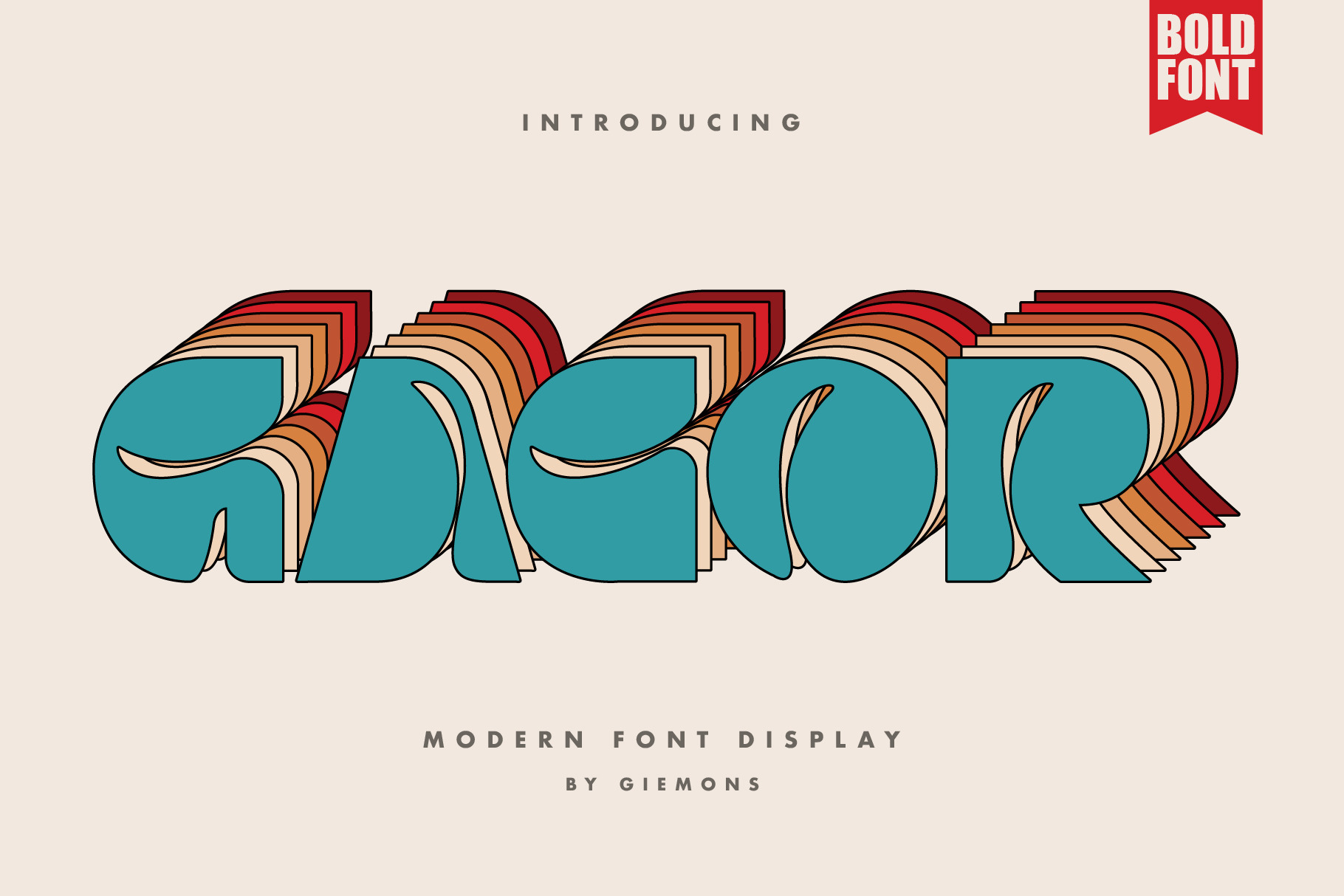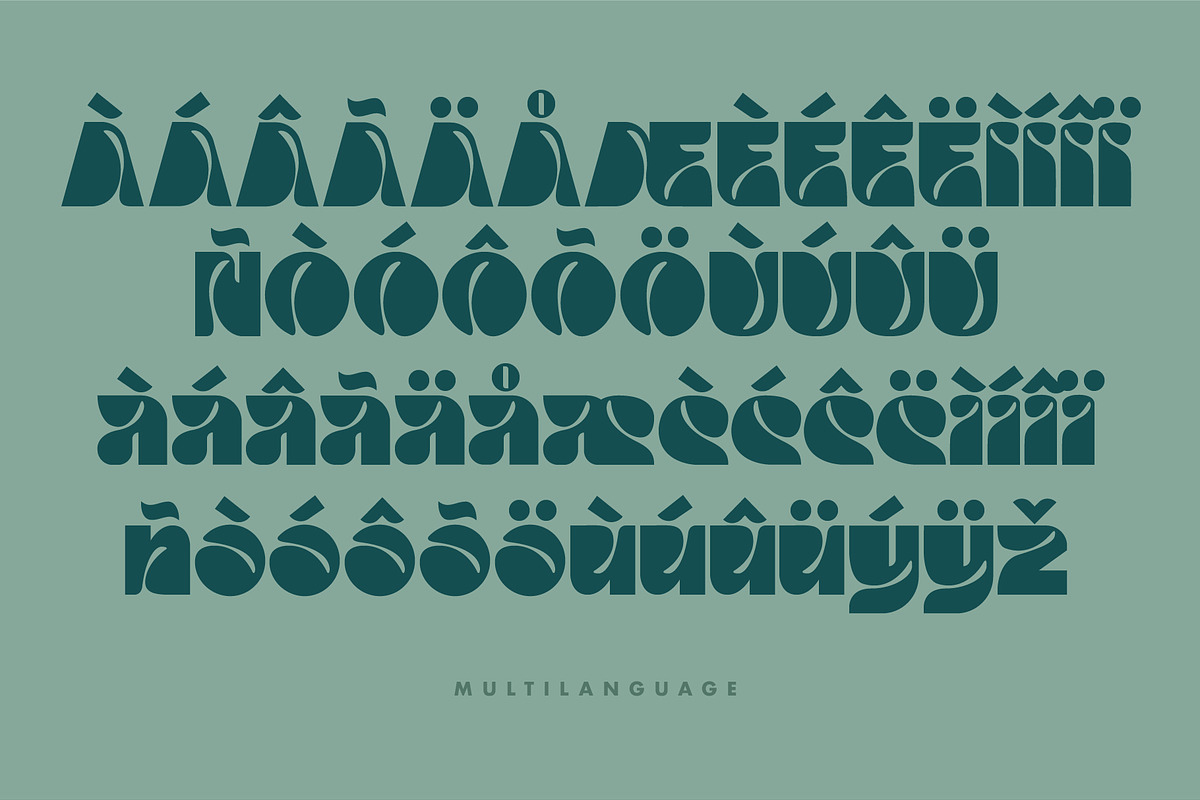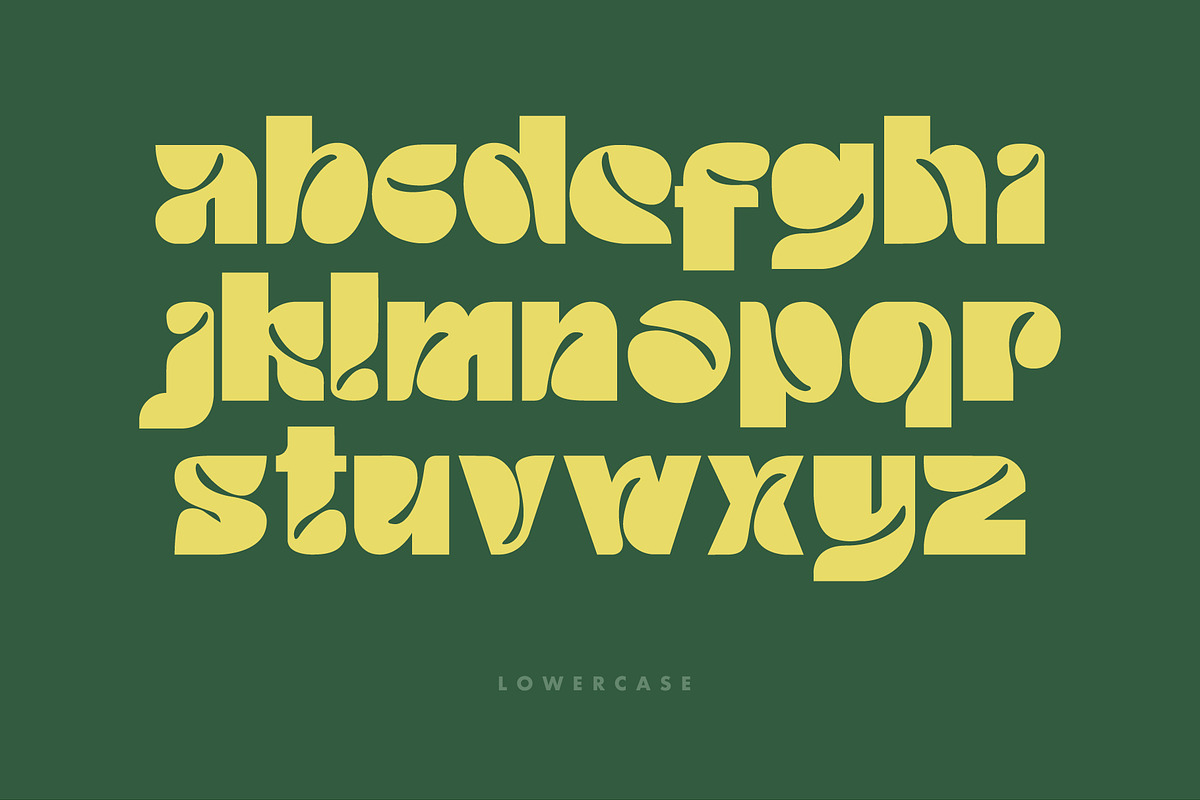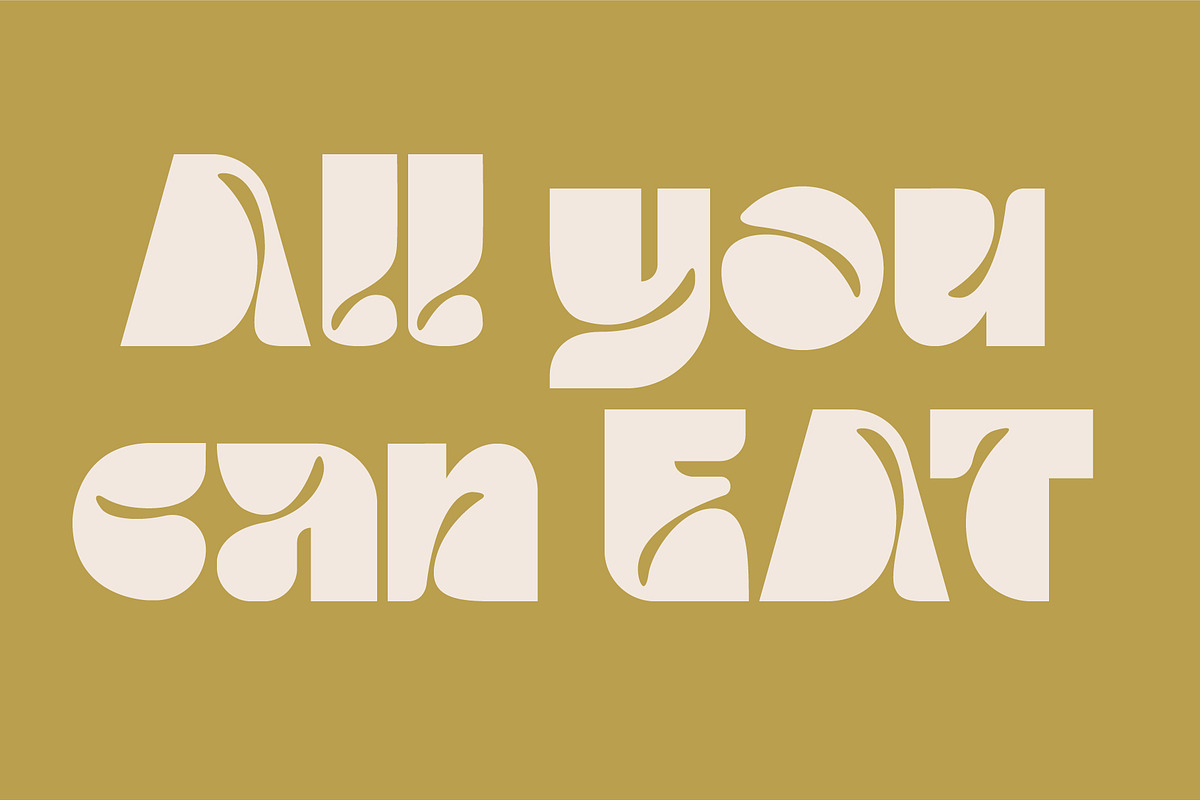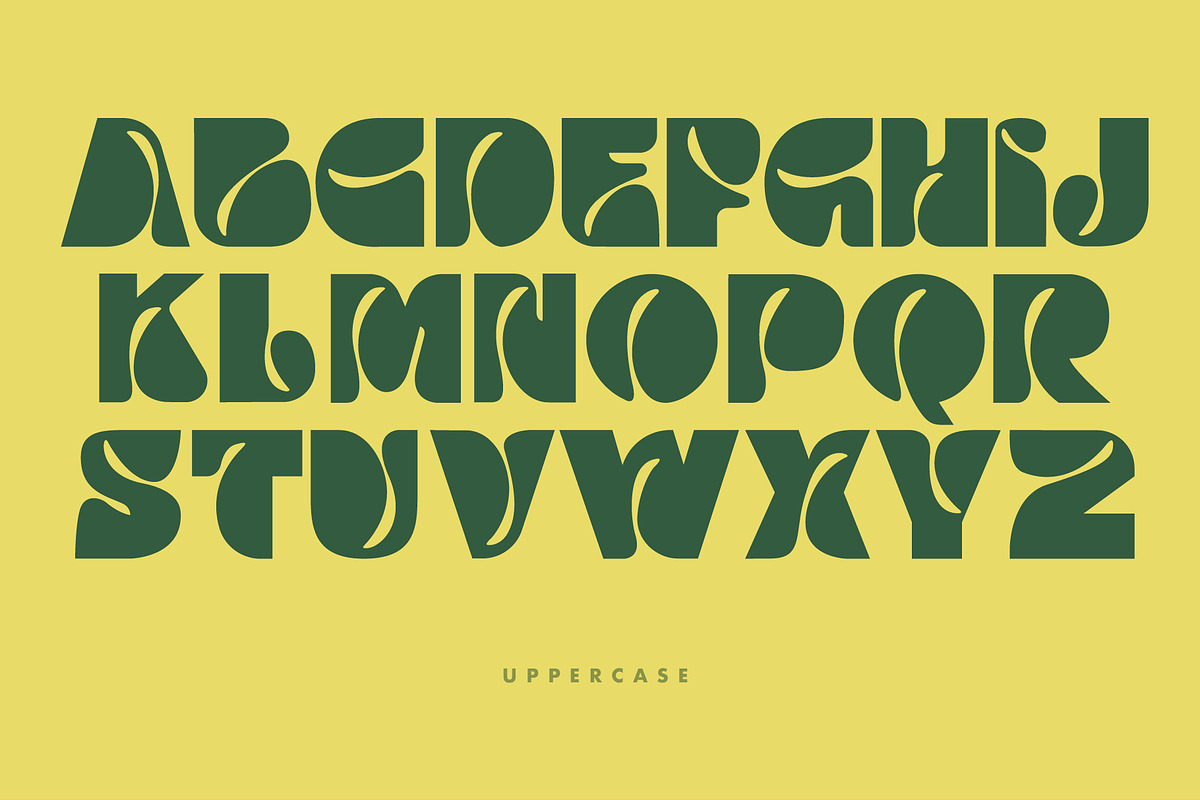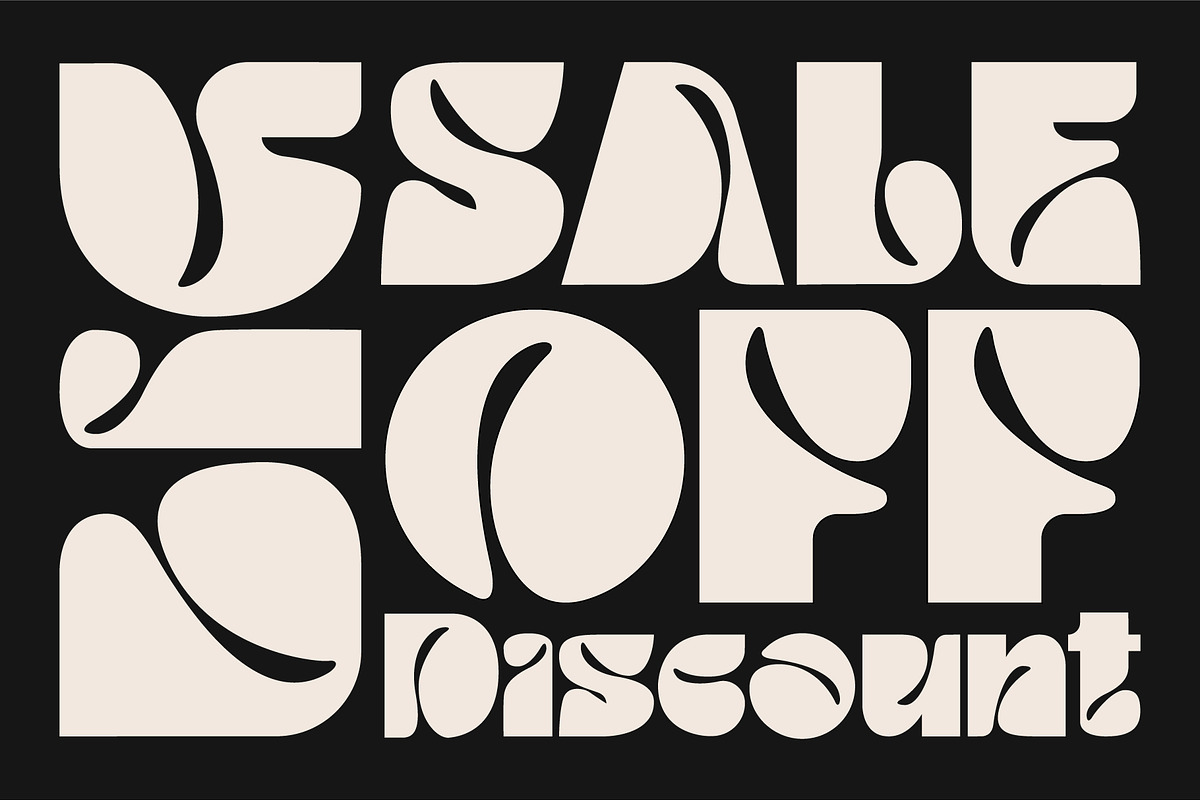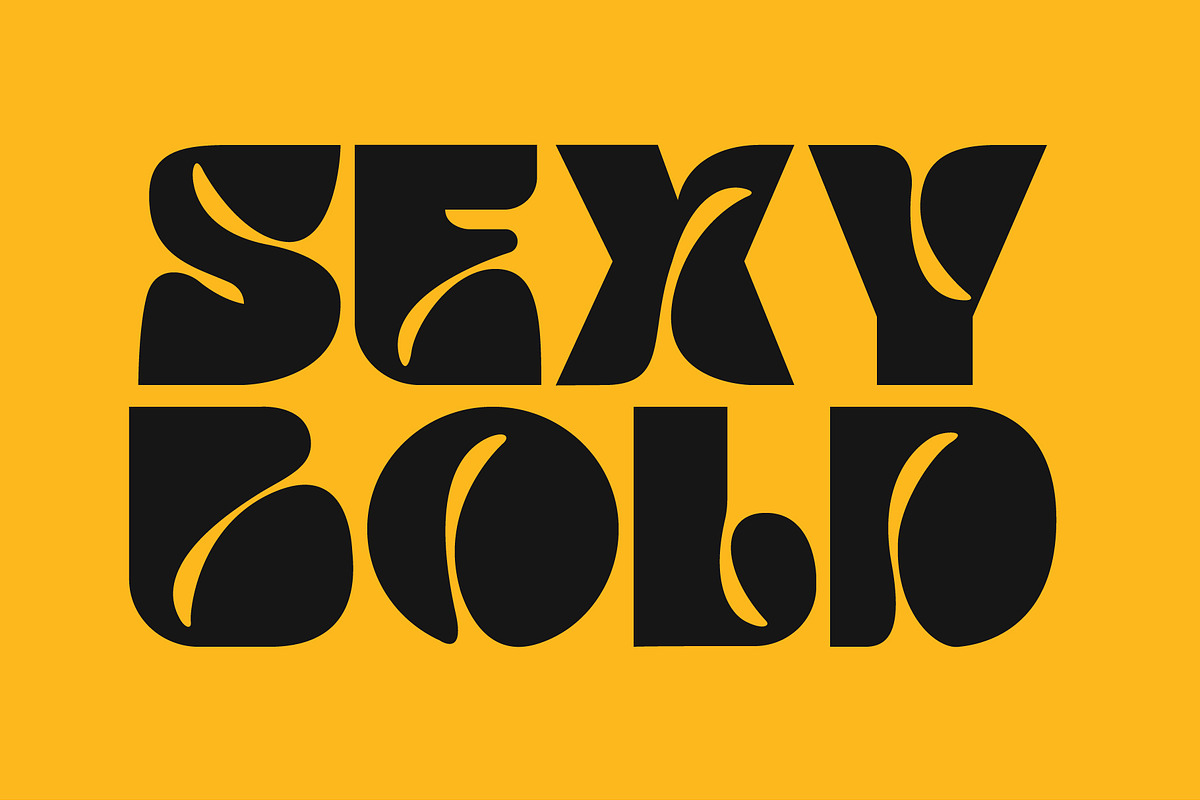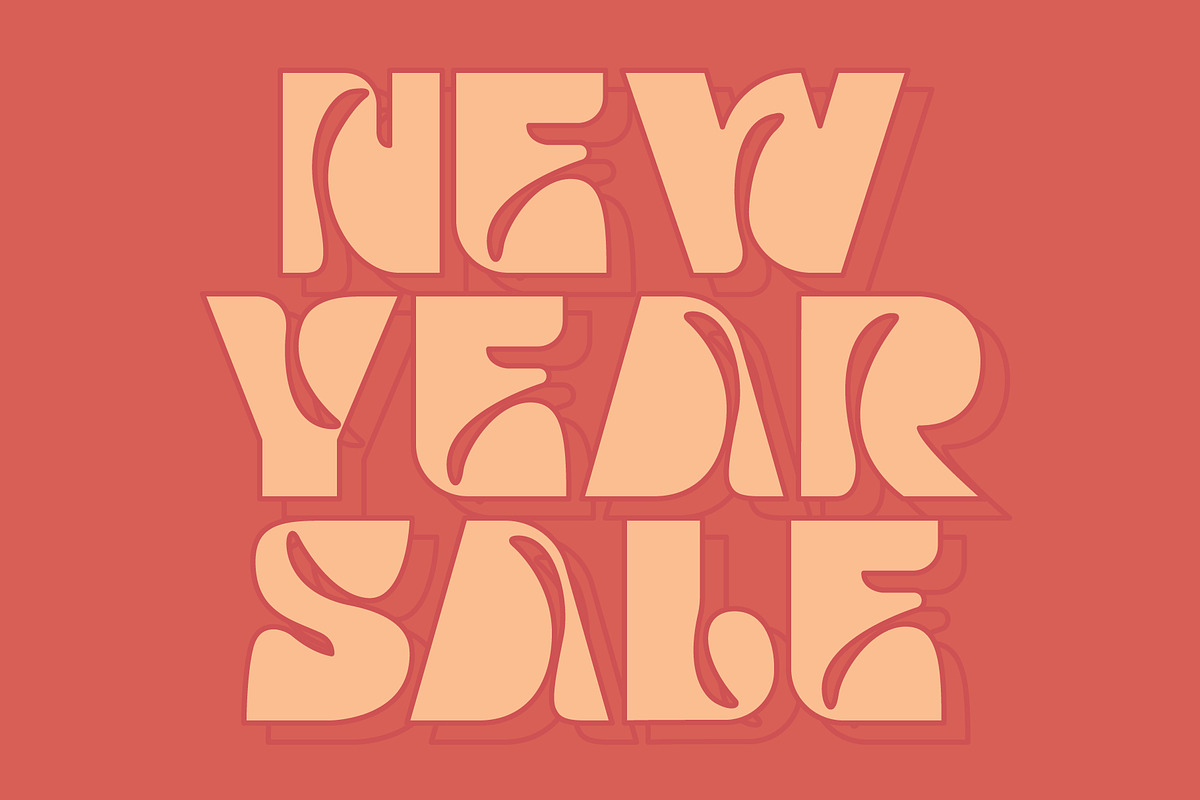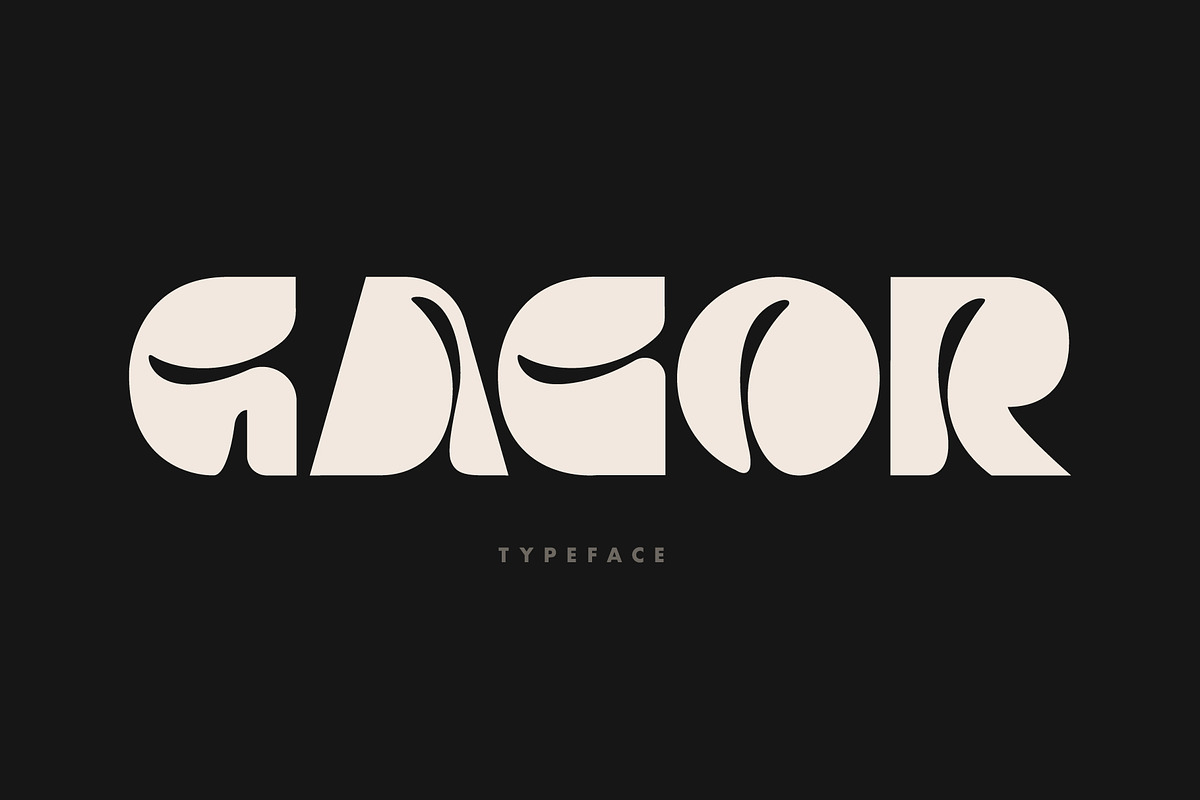
Gacor Font | Modern Display
an GACOR is modern display font. Can make it easier to convey the message in your design. Use for awesome display, Logo, labeling, clothing, movie sceen, poster, movie title, gigs, album covers, logos, and much more.
- Multilanguage character